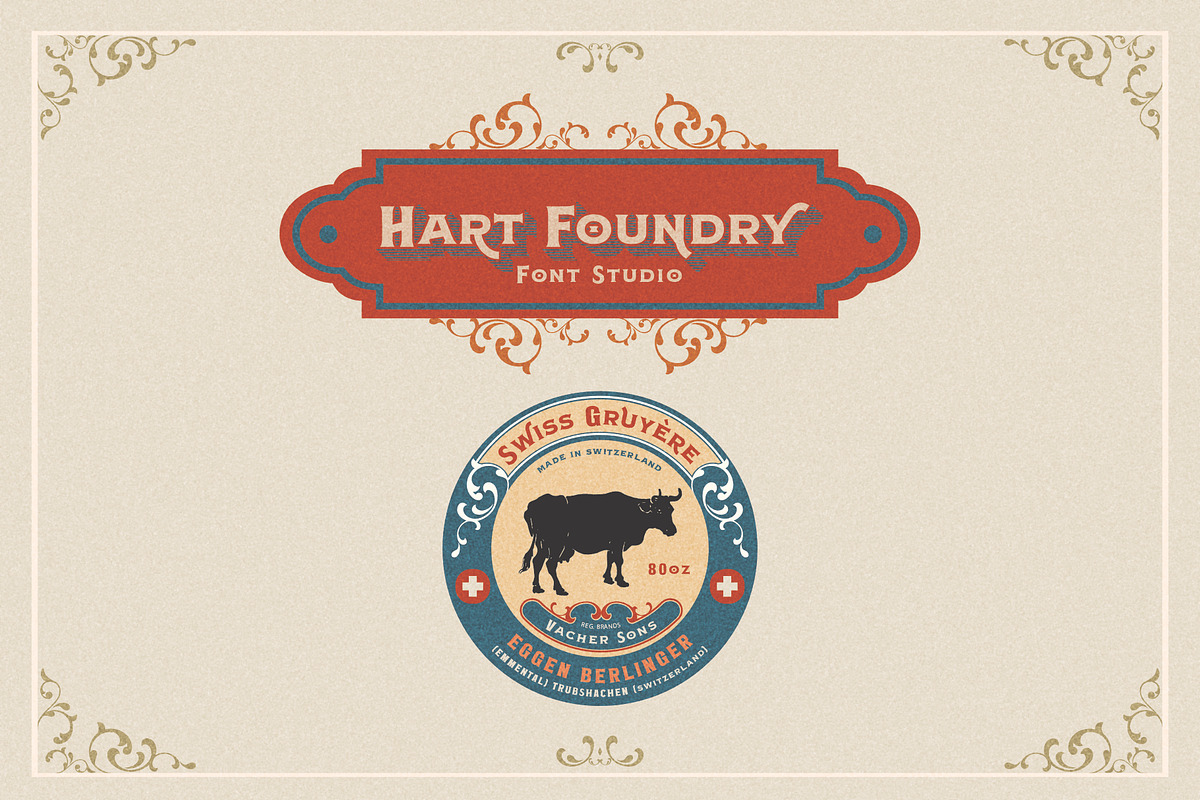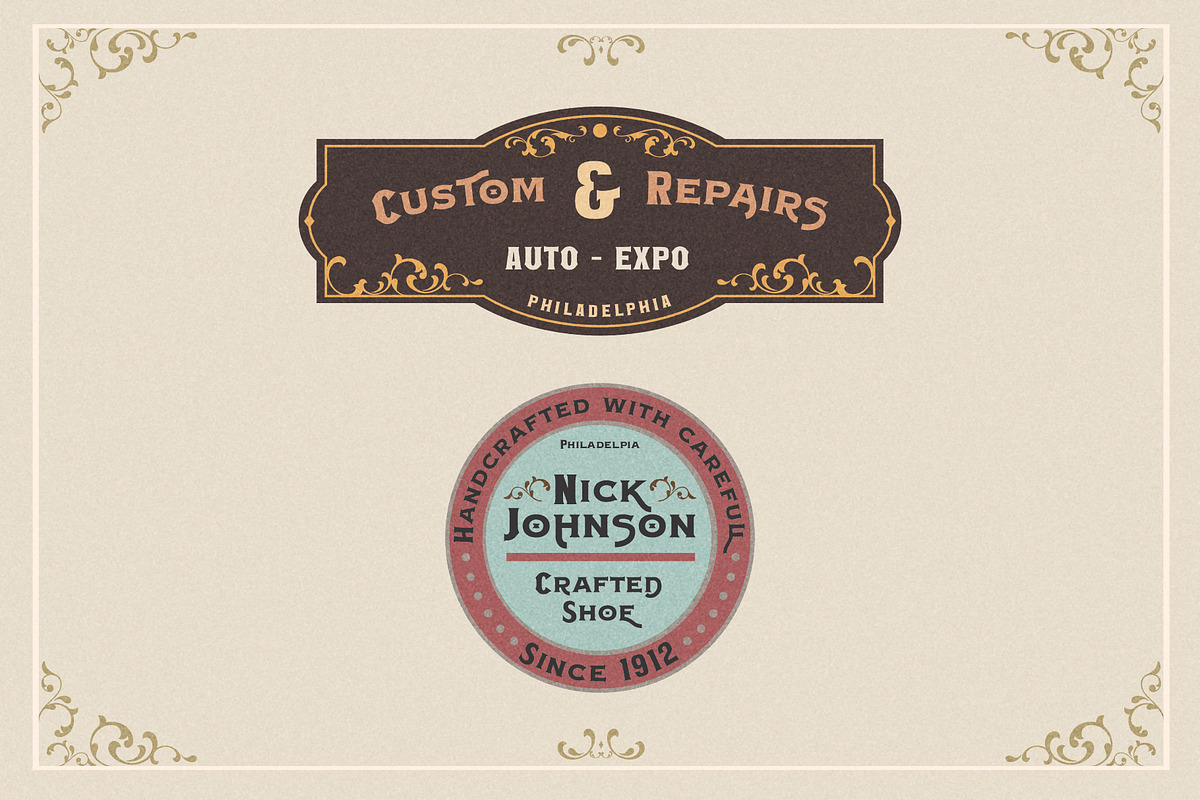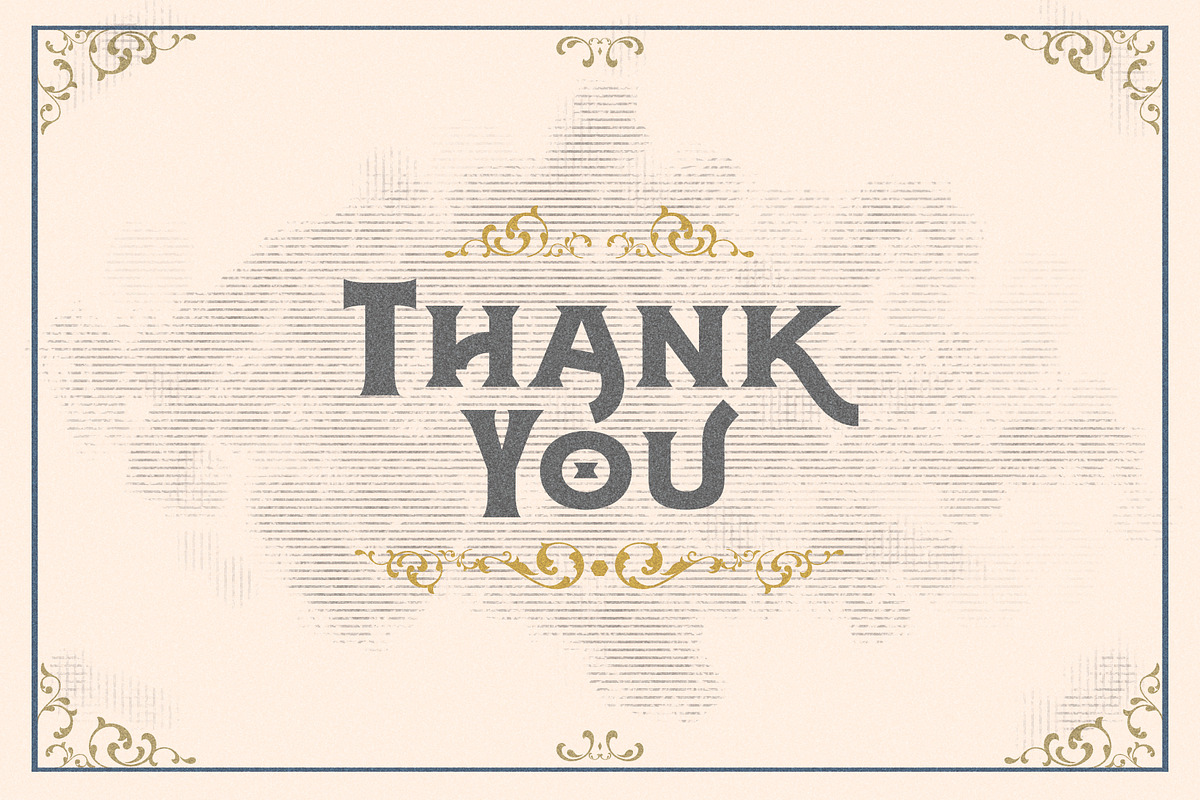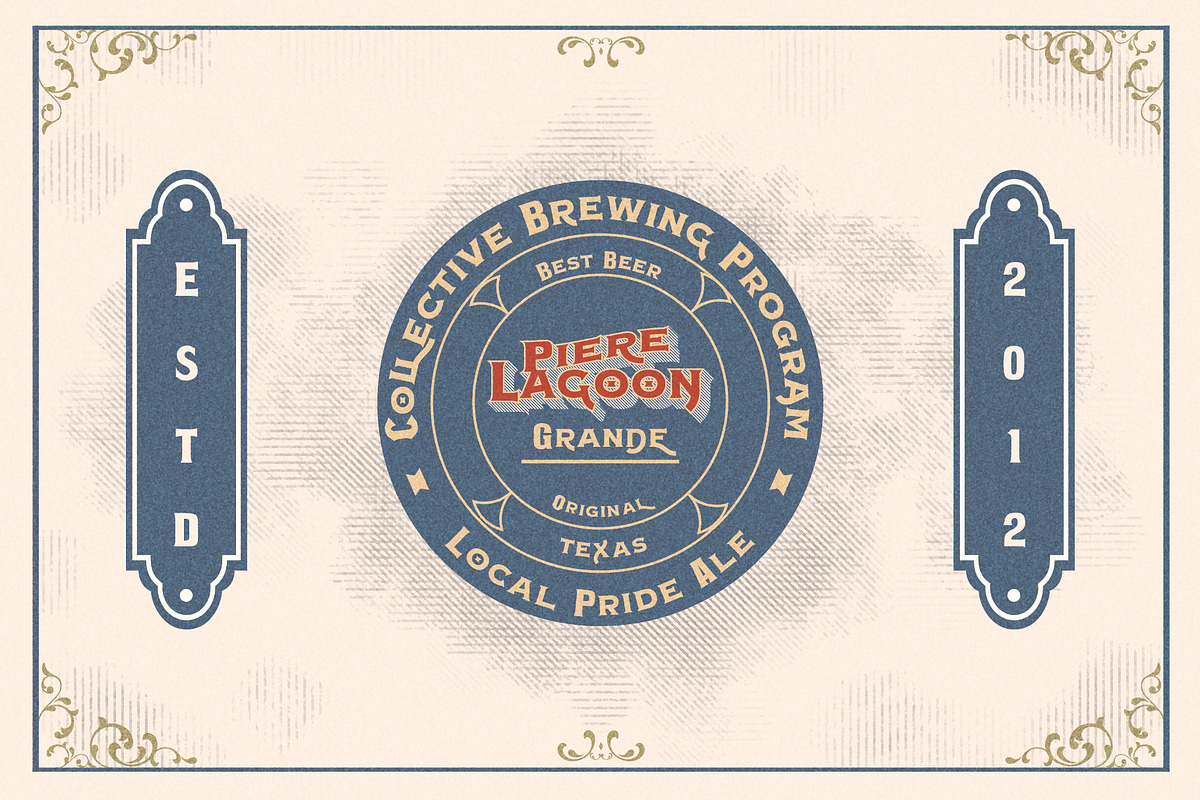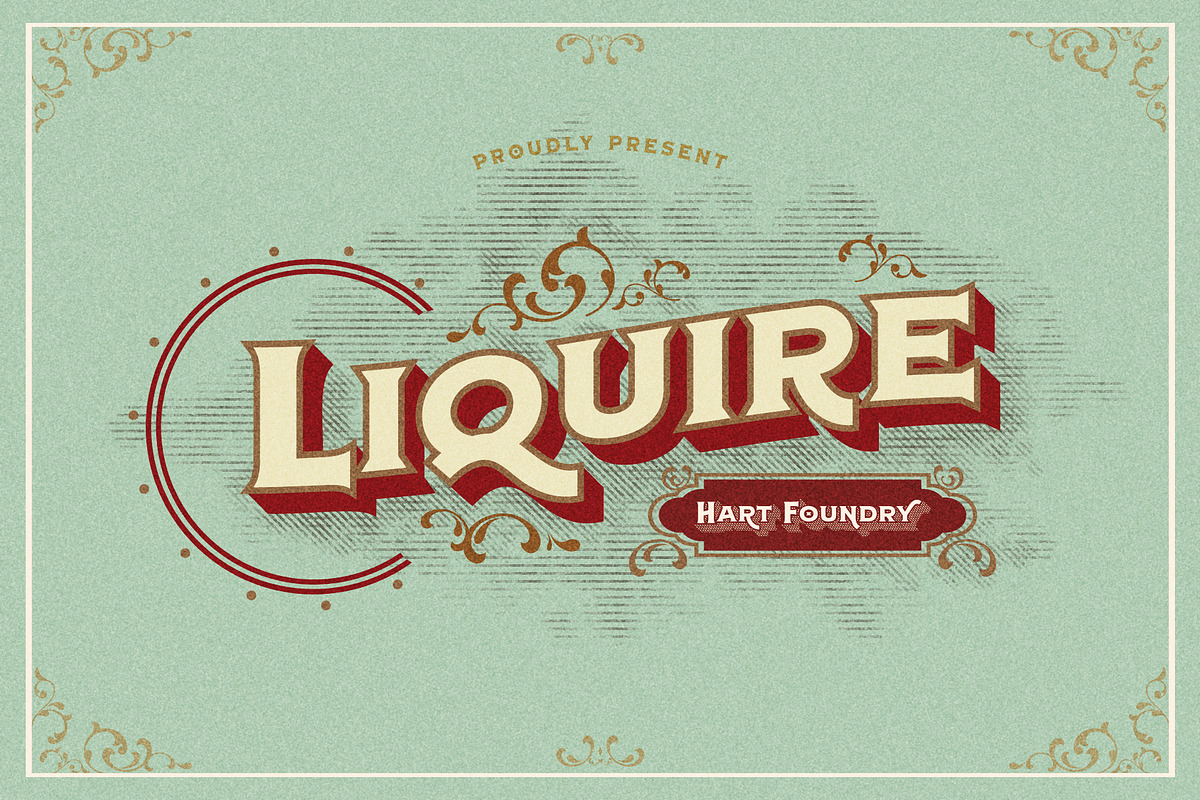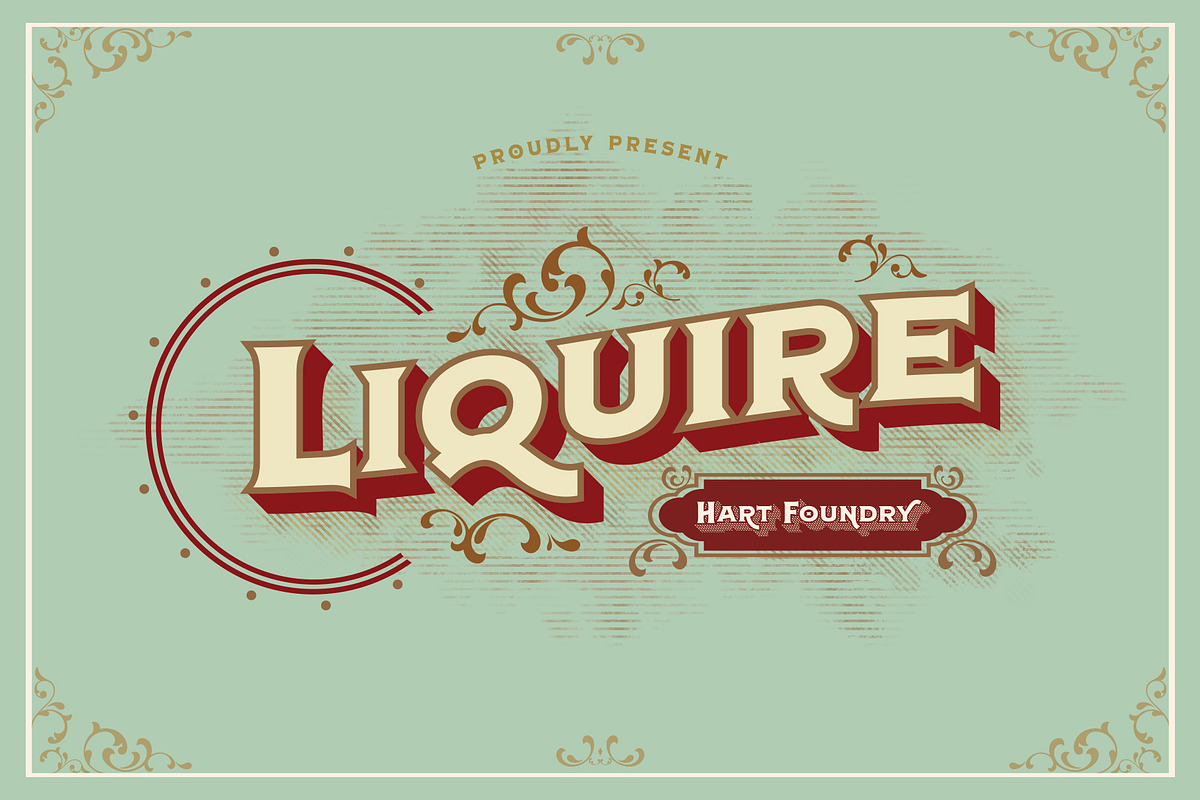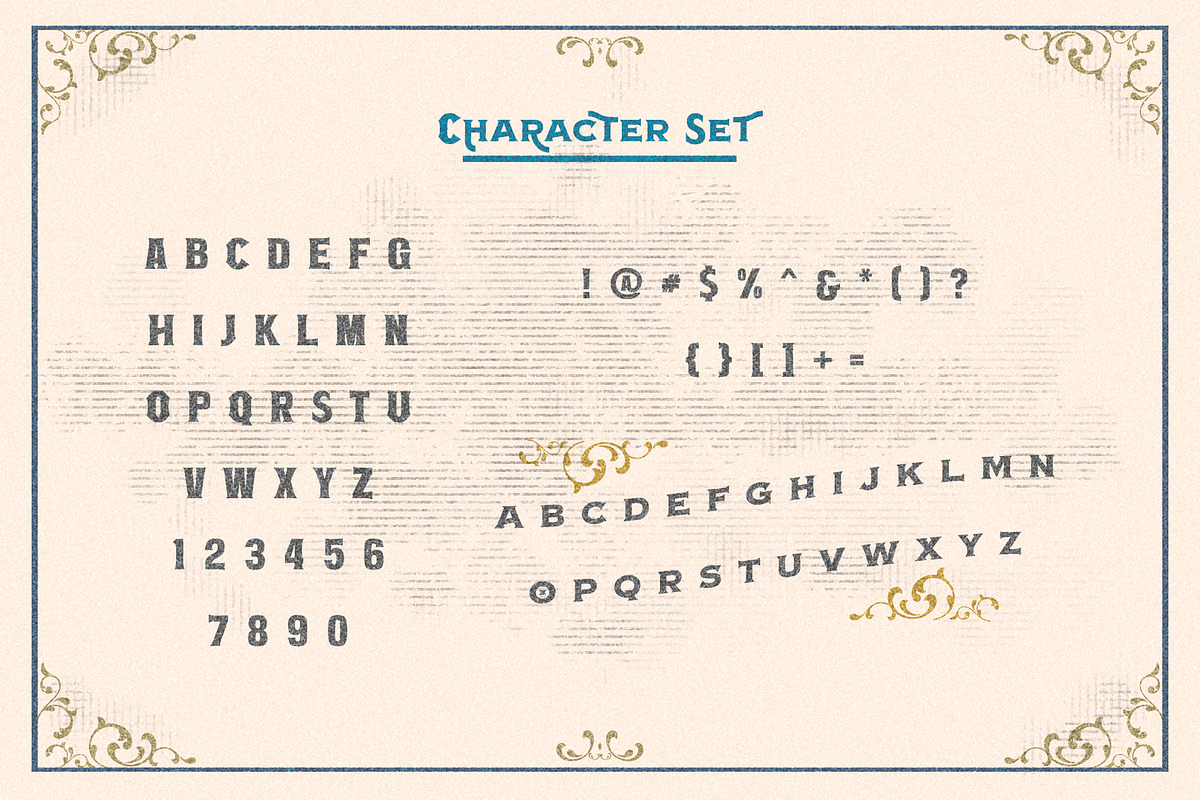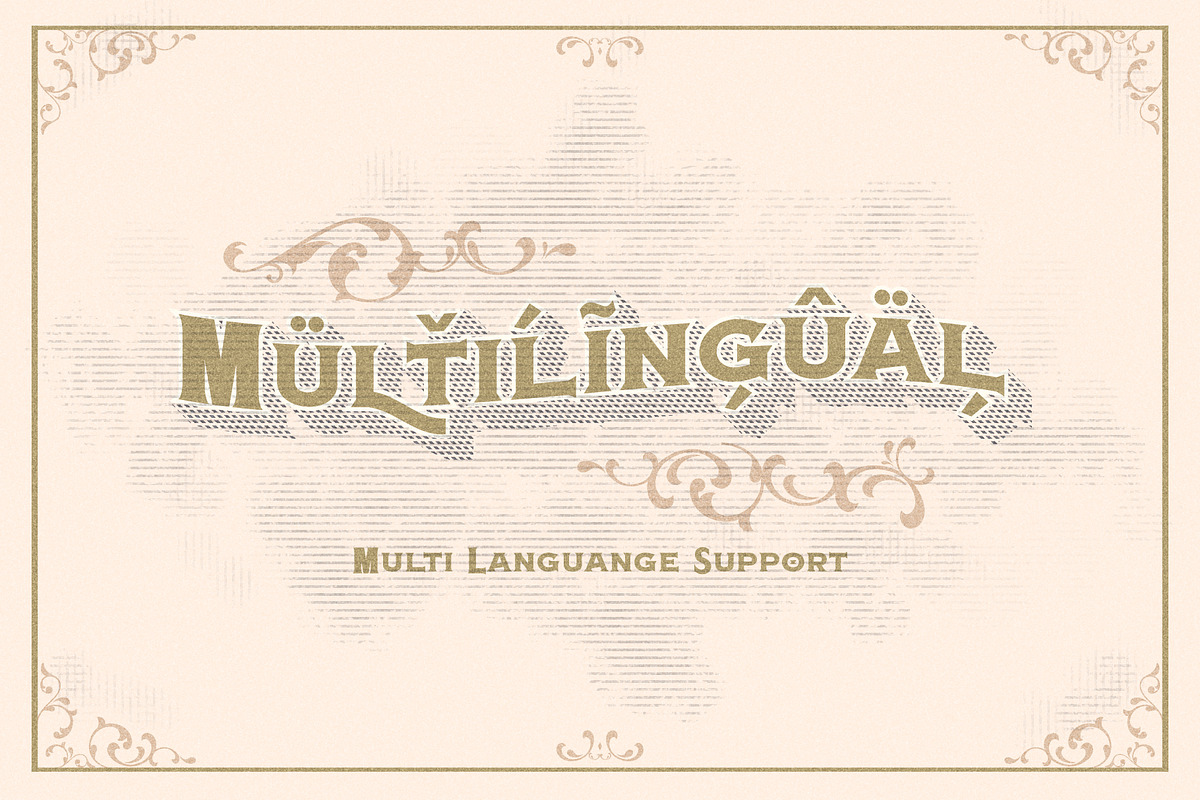
Liquire
Liquire Inspired by the vintage fonts, but made a little more modern. In combination with some alternates and ligatures you can explore the design you need for your typography project. This font package is perfect for magazines, titles, invitations, movies, product designs, brands, and other design projects. Not included the sample display I really hope you enjoy using Broadway font, please don't hesitate to drop me a message if you have any question :)